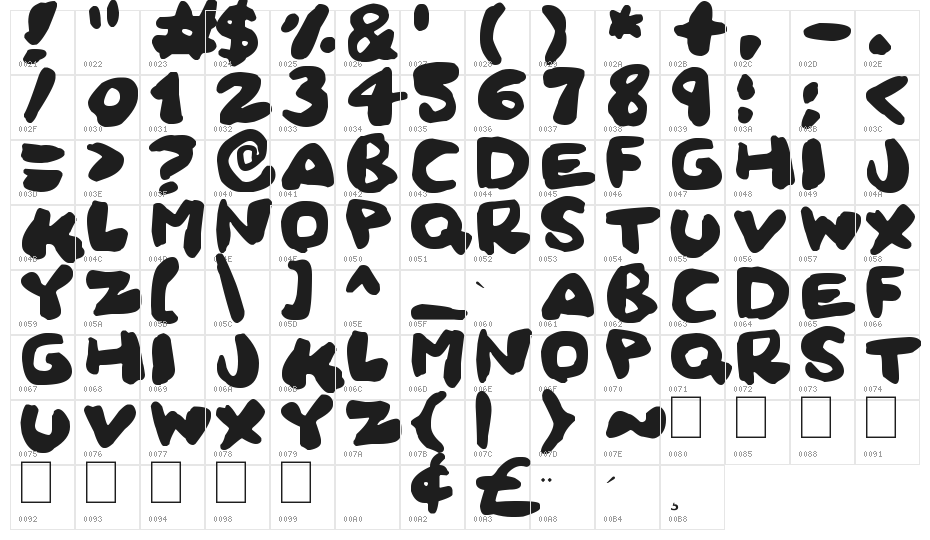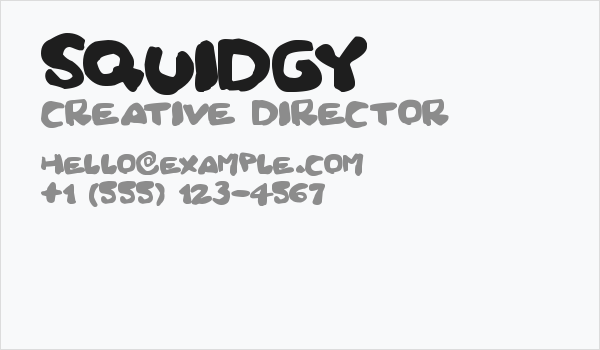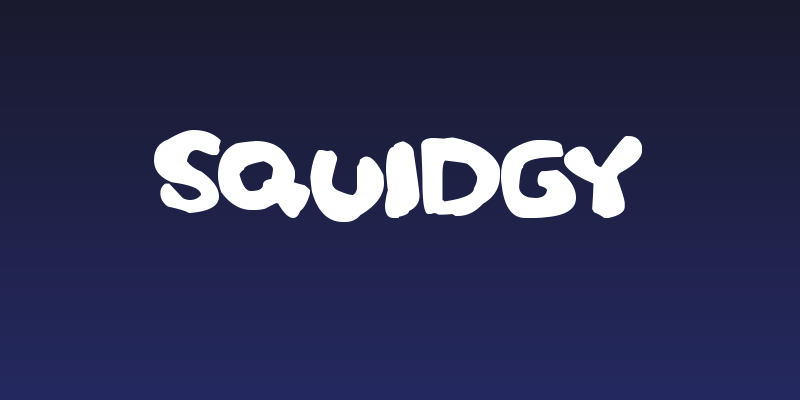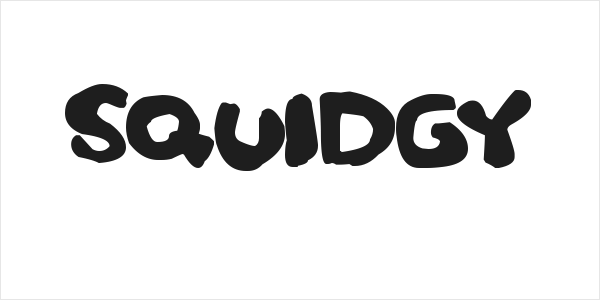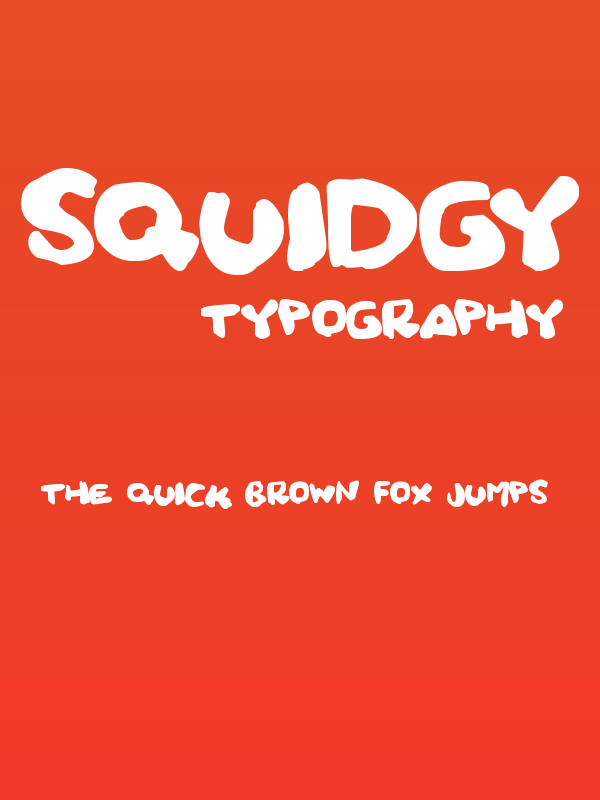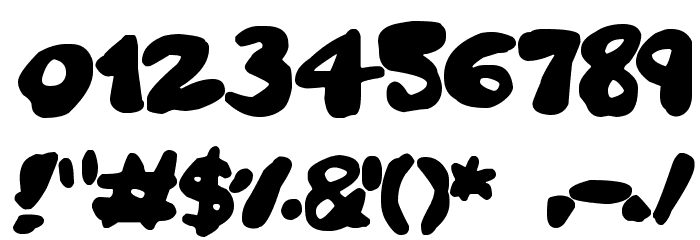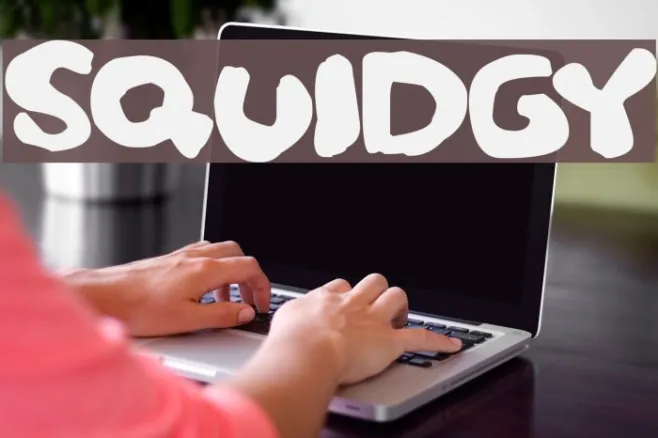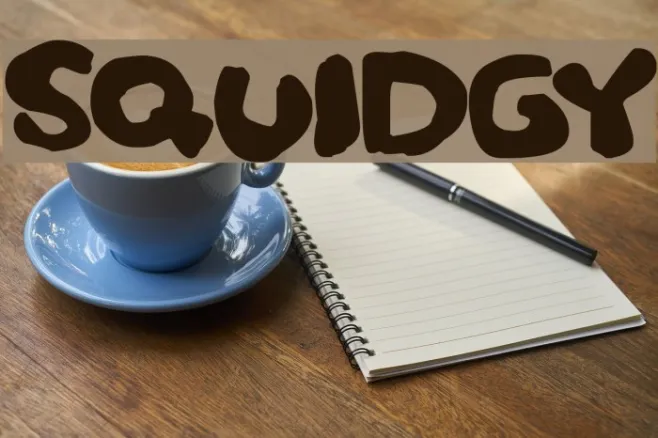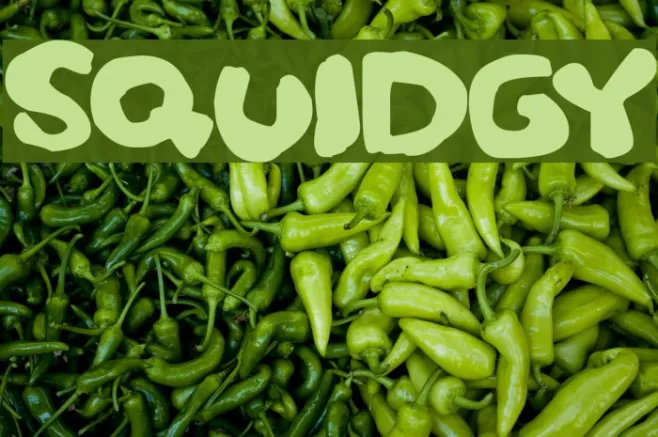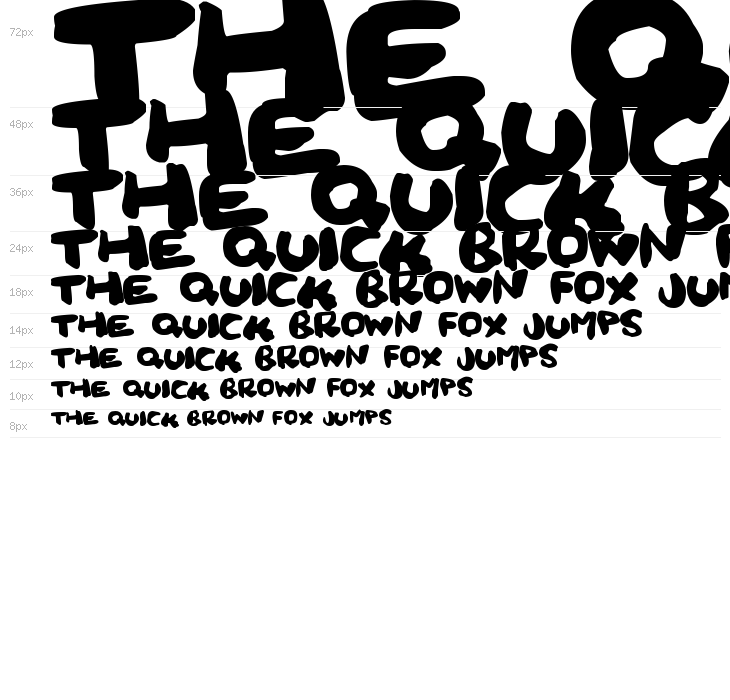
Squidgy Font
Squidgy Description
This playful and bold font features a unique, rounded style with a bubbly appearance. The characters are thick and have a soft, almost squishy look, giving them a friendly and approachable feel. The letters are slightly irregular, adding to the whimsical and informal nature of the font. This style is reminiscent of hand-drawn or cartoon lettering, making it ideal for projects that require a fun and lighthearted touch. The font maintains consistent thickness throughout, with minimal contrast in stroke width, contributing to its cohesive and uniform appearance.
| Proposed Projects | Ideal for children's books, comic strips, playful branding, and party invitations. |